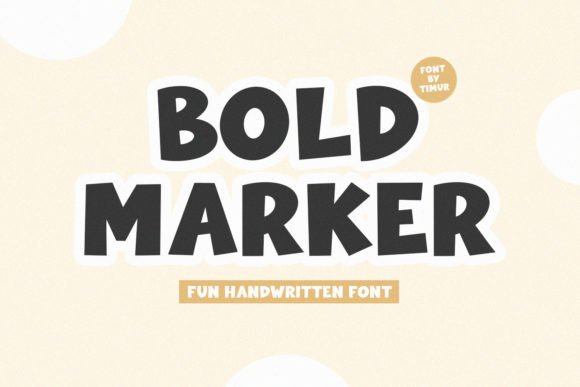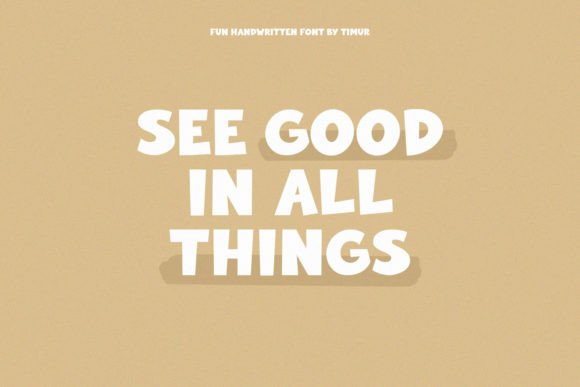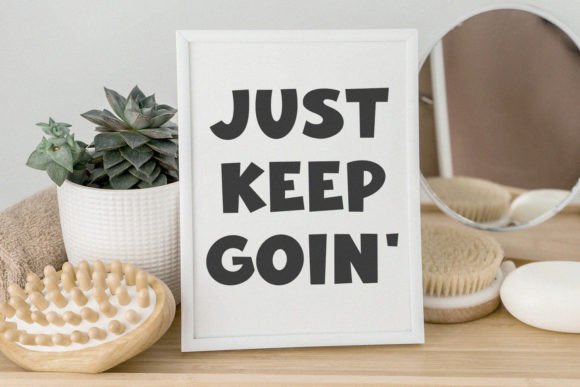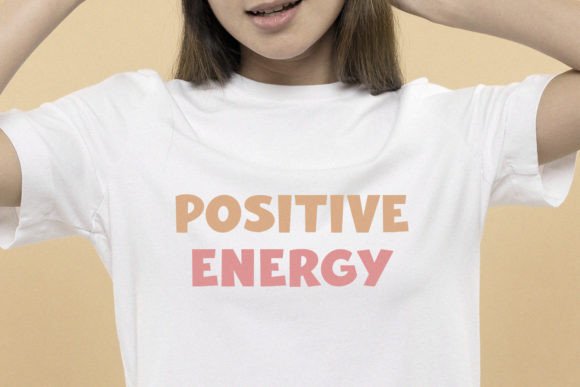
Bold Marker Font: A Playful Handwritten Font for Social Media
About the Bold Marker Font
Elevate your designs with Bold Marker Font, a font that combines sophistication with readability. Bold Marker – A unique display font created with great care, especially for you 😊
Bold Marker is perfect for product packaging, branding project, magazines, social media, weddings, or just used to express words above the background.
Bold Marker’s strong, hand-drawn aesthetic makes it ideal for headlines, short impactful statements, and logos requiring a bold, friendly personality. It excels in branding projects for artisan goods, children’s products, or anything needing a touch of handmade charm. Avoid using it for body copy or lengthy text; its unique character is best suited for display purposes.
Pairing Bold Marker with a clean sans-serif like Open Sans for body text creates a strong visual hierarchy. For a more playful feel, consider a rounded geometric sans-serif such as Lato. A classic serif like Garamond can add sophistication when contrast is desired.
The font’s overall personality is best described as bold, friendly, and approachable, conveying a sense of handcrafted authenticity.
Bold Marker Font Example